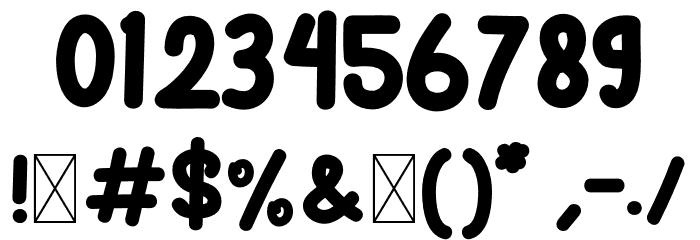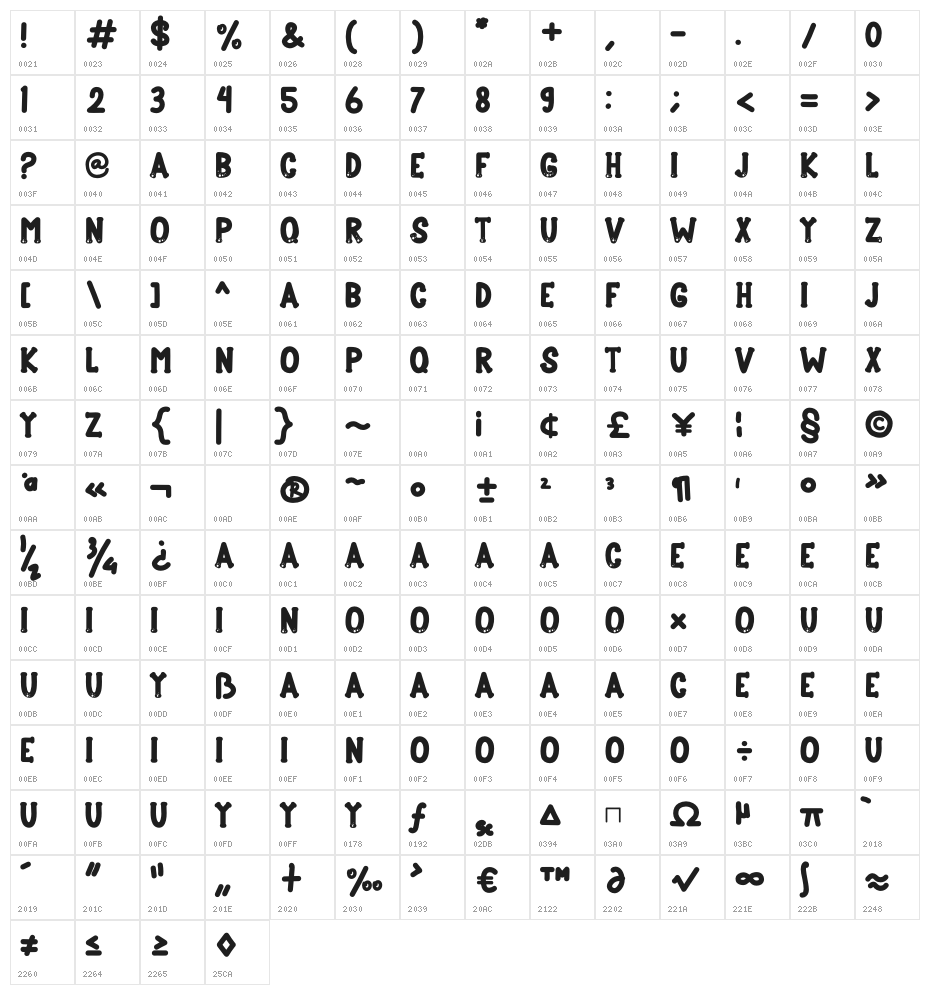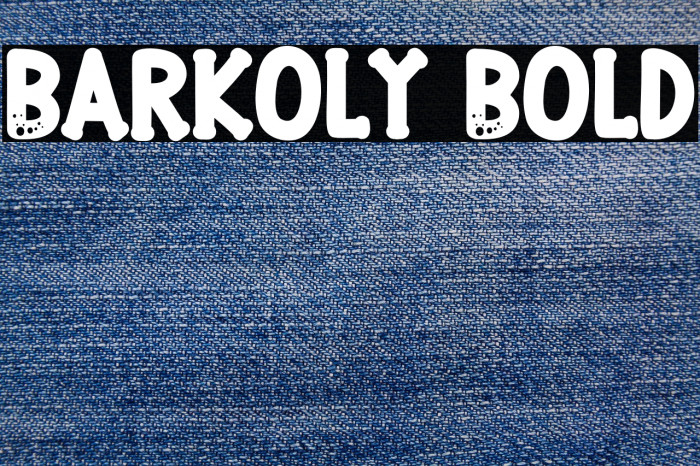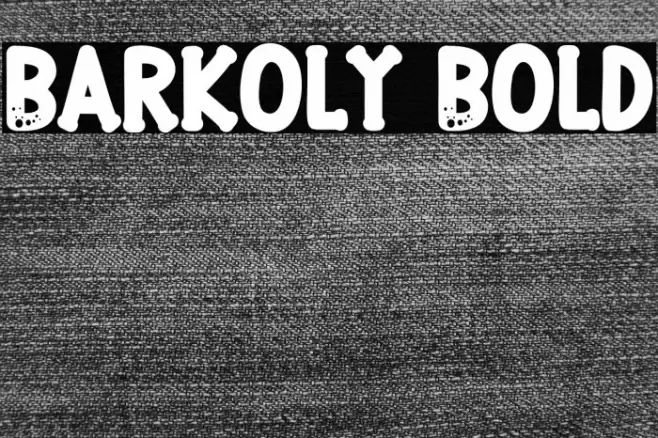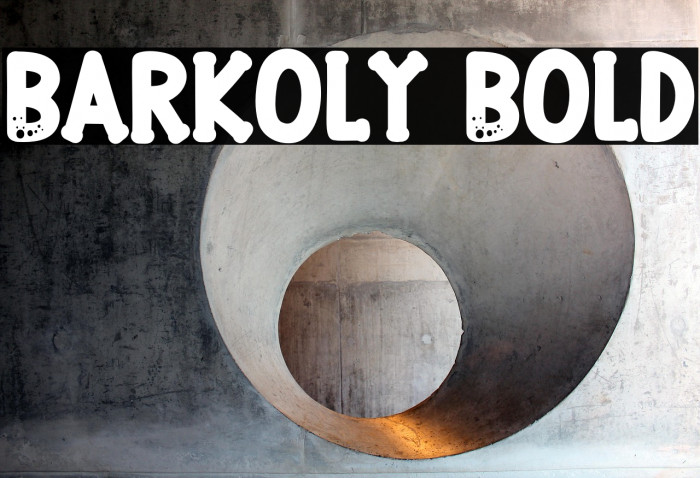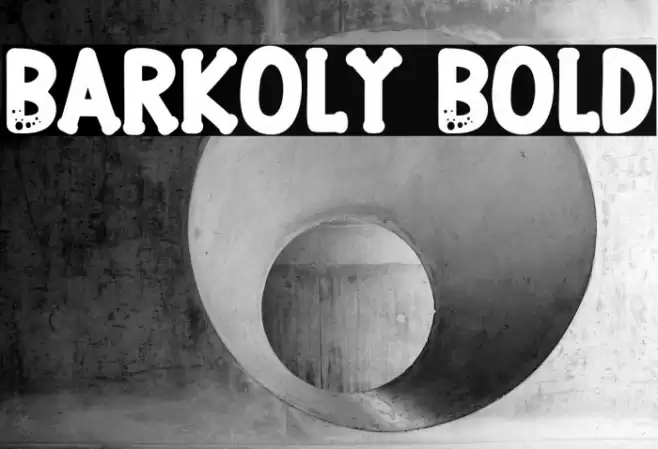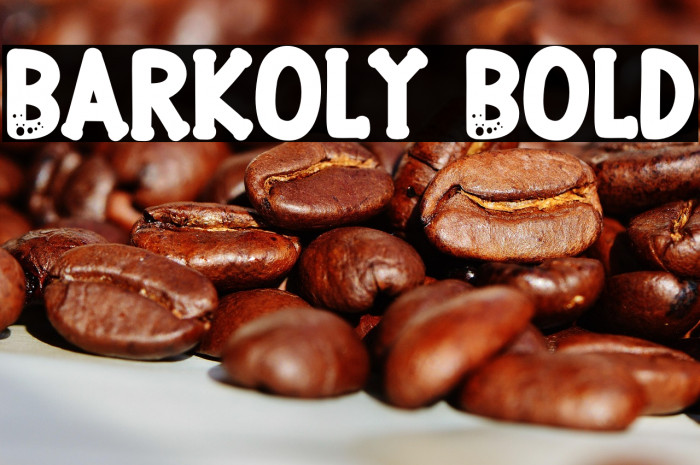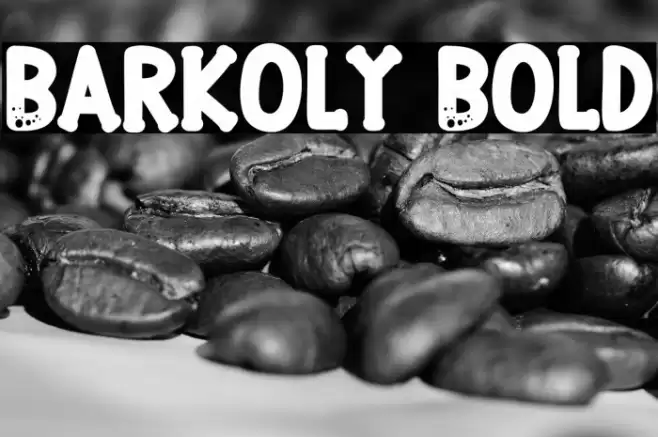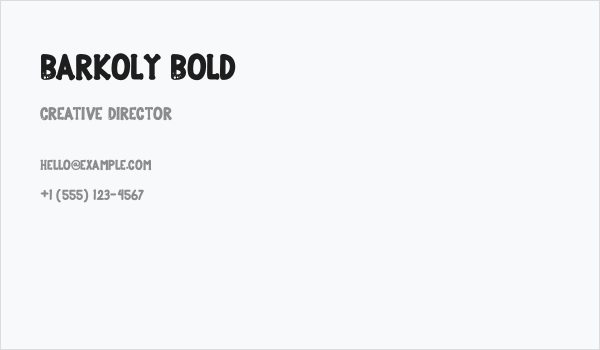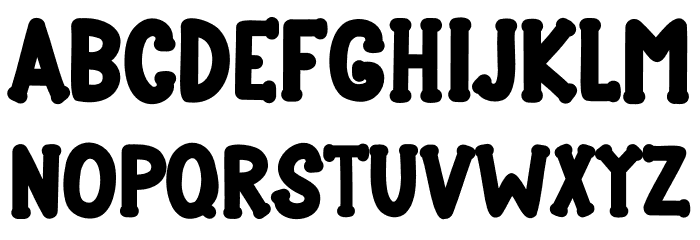
Barkoly Bold Font
Barkoly Bold Description
This font features a bold, playful style with rounded edges and a bubbly appearance. The characters are thick and substantial, with a whimsical touch that includes small circular cutouts in some letters, adding a unique decorative element. The font maintains a consistent weight throughout, providing a cohesive look. Its boldness and distinctive design make it stand out, while the rounded forms give it a friendly and approachable feel. The numbers and special characters follow the same playful style, ensuring uniformity across all glyphs. This font is ideal for projects that require a fun and engaging visual impact.
| Overall Style | Playful, Decorative |
| Proposed Projects | Ideal for children's books, playful branding, posters, and party invitations. |